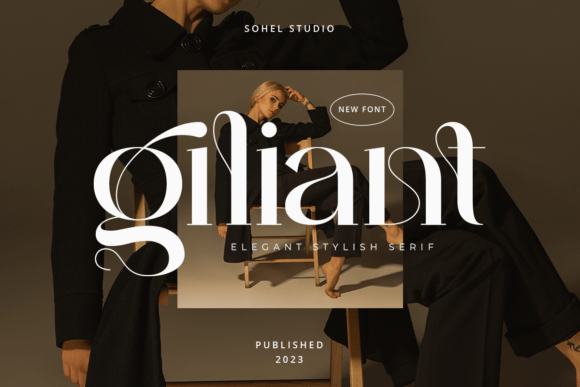
Introducing Giliant Font, the epitome of elegance and sophistication in the world of typography. As an E-commerce SEO expert, I am here to showcase the beauty and versatility of this remarkable serif font, created by the talented Sohel Studio.
Giliant Font is not just any ordinary typeface; it is the best font for decorative signs. With its unique alternative characters and impeccable kerning, this font enables you to create stunning designs that will captivate your audience.
Imagine having the power to craft an elegant and luxurious logo that leaves a lasting impression on your target market. Giliant Font is your secret weapon for creating a brand identity that exudes class and refinement. Whether you are designing for a high-end fashion brand, a women's magazine, or a cosmetic brand, this font will elevate your creations to new heights.
In the competitive world of modern advertising, standing out from the crowd is crucial. Giliant Font provides you with the perfect tool to create eye-catching and attention-grabbing designs. Its sleek and sophisticated appearance will ensure that your advertisements leave a lasting impact on potential customers.
But Giliant Font doesn't stop there. Its versatility extends far beyond the realms of logo design and advertising. This font is ideal for creating elegant invitation cards, art quotes, book and cover titles, and even home decorations. The possibilities are truly endless.
Envision a special event where every detail is meticulously crafted to perfection. Giliant Font will add a touch of sophistication to your event invitations, ensuring that they become cherished keepsakes for your guests.
Not only that, but Giliant Font is also perfect for creating stylish merchandise. From tote bags to t-shirts, this font will transform your products into fashion-forward statements that people will be proud to wear.